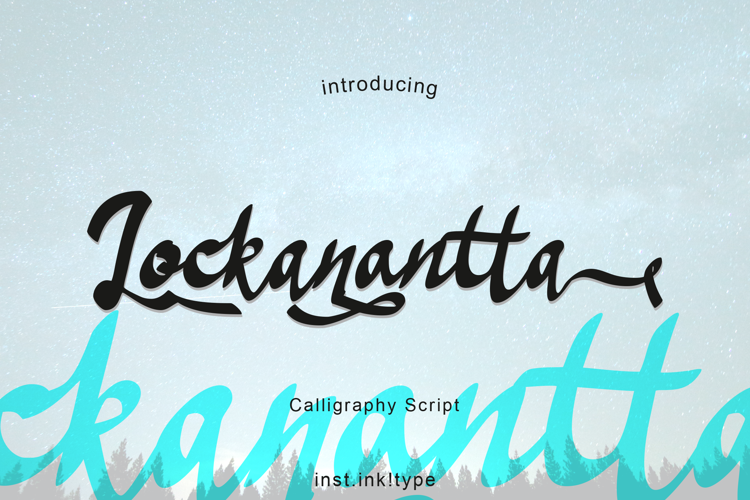
Lockanantta Font
Introducing The Lockanantta Calligraphy Script font. Fell the casual, classic script, and vintage typeface. Features in Otf format also include stylistic alternate, ligatures, discretionary ligatures, and multilingual support. But you need a program that support the OpenType Features, exp ; Adobe Photoshop, Indesign, Illustrator (in panel Opentype/Glyph), can be openend in CorelDraw (insert character) or in windows program can be found in Character Map to view all alternative character. Lockanantta can be use for various purpose, such as invitation, book, news, signgage, badges, poster, name card, brochure, logo, craft design, DIY project, web, blog, film, etc.